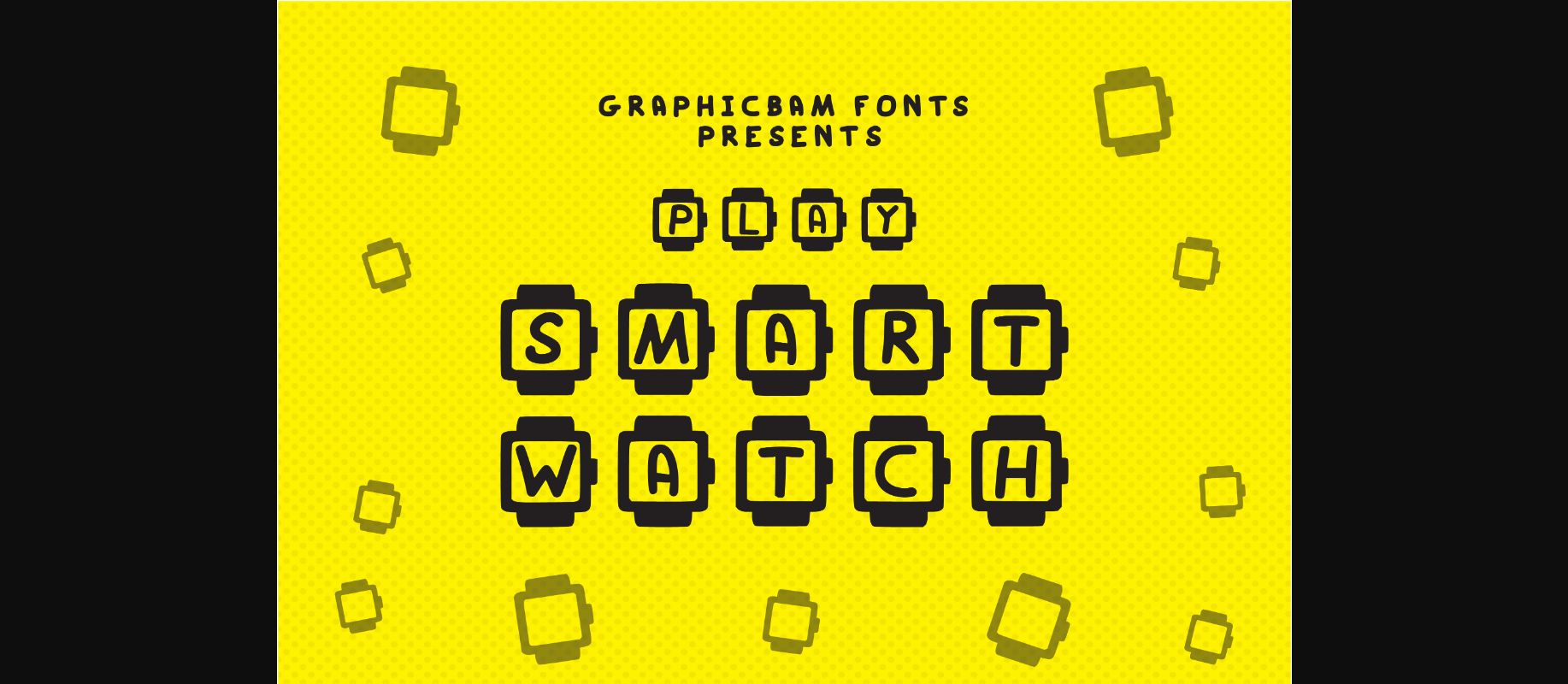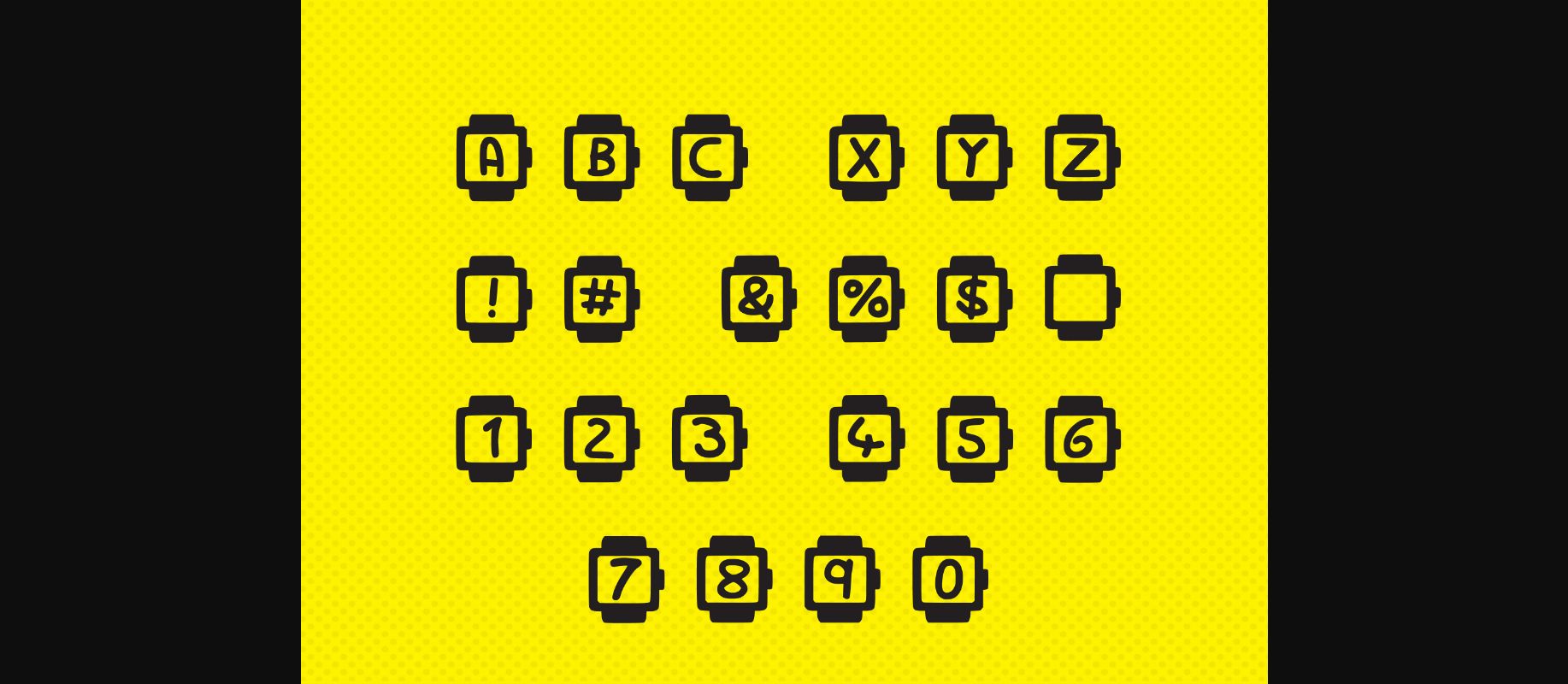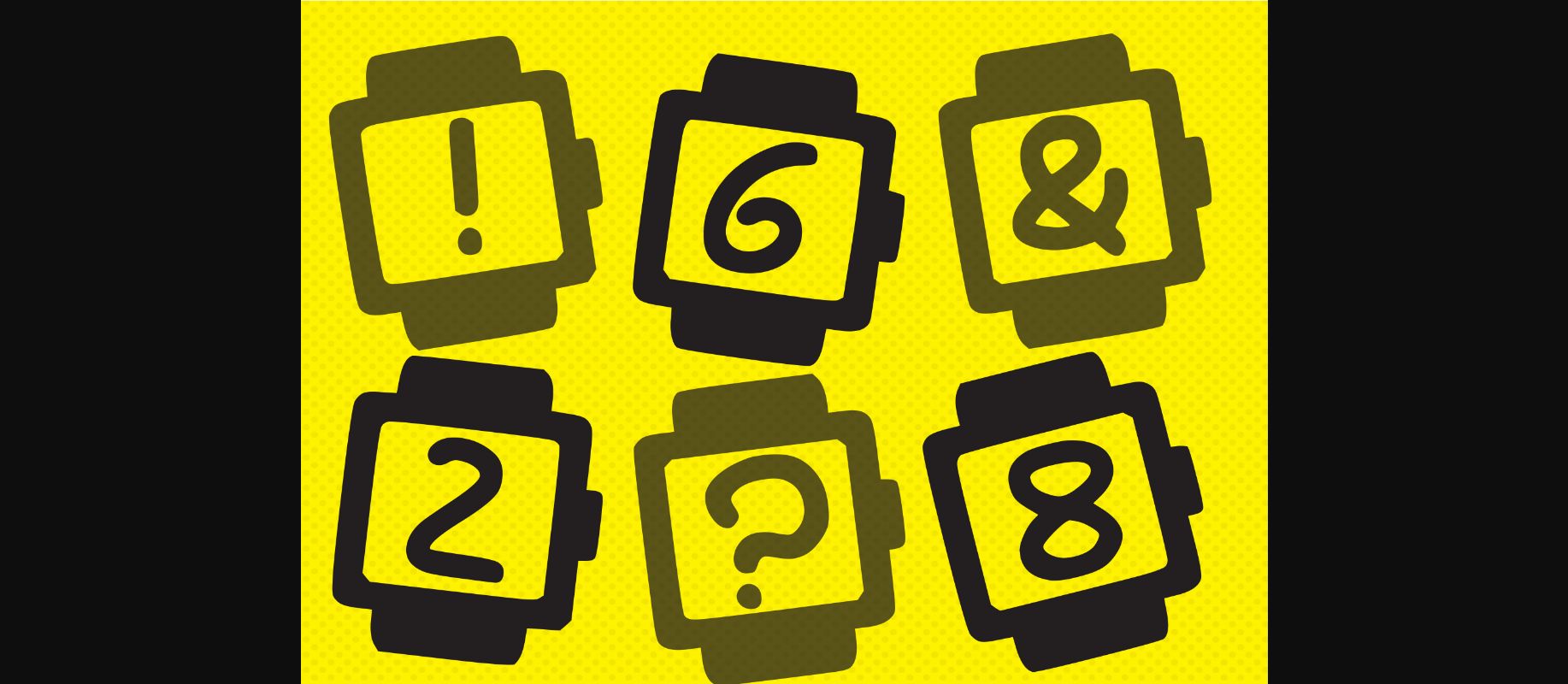
About Play Smart Watch Font
Let your creativity flow and use Play Smart Watch – a decorative font meant to impress with its versatility! Use this fancy typography to add a creative and smart accent to stationery items, school designs, branding projects, apparel, book covers, or anything else.